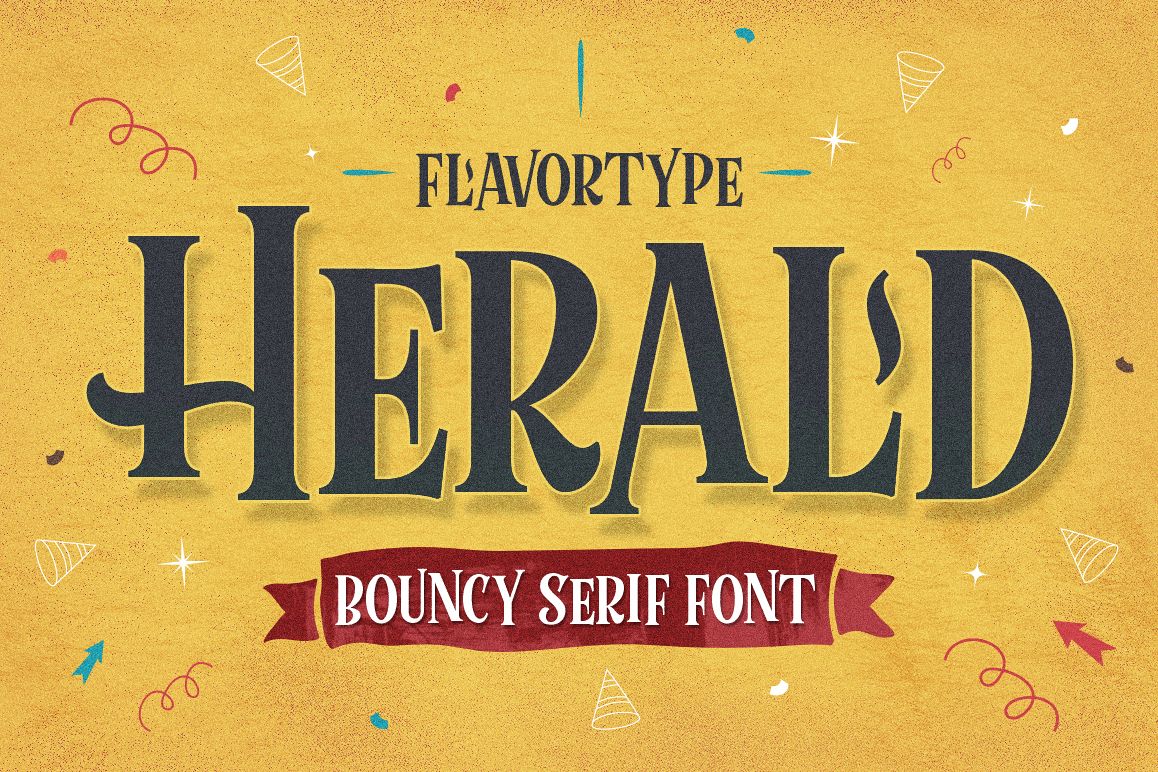
Herald Bouncy
Flavortype Present : Herald Typeface is an geometrically designed serif with bouncy baseline. Characteristic of this fonts will act to create an ambience of fun.No matter how is your design concept to looking fun. it can be serious, scary, mystical, chilling, dark or light. With Herald typeface, your design will more quieter, relax, enjoy, etc.Comes with TON of vector to complete your project, to make you easier for adding the “fun object”, of course you will have more time for coffee. : )Inside :